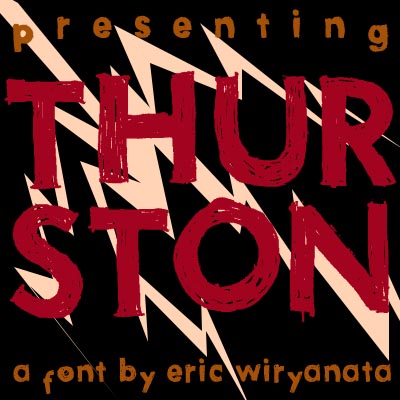
Preview and download Thurston Erc Font. Created by The Space Wanderer in Script Trash styles with Donationware license.
the name Thurston was taken after Thurston Moore. But the design didn't came from any of Thurston Moore related, I just thought that the name would fit the font nicely The font was sketched using the Futura font as inspiration. I embed some illustration in the font. |